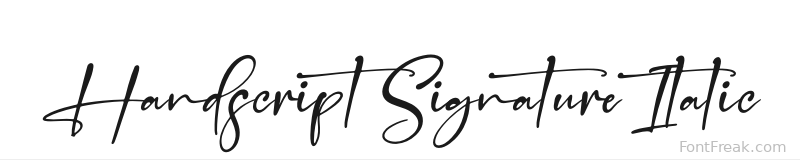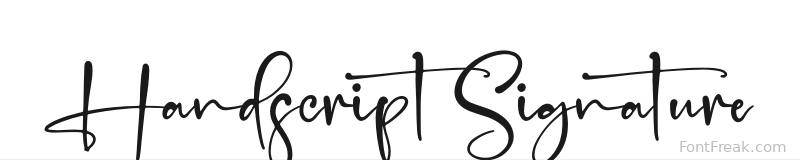
Handscript Signature
Handscript Signature Italic
Handscript Signature by Perspectype Studio is a captivating handwritten font that embodies the elegance and fluidity of natural script. This italic typeface showcases a delightful blend of organic curves and graceful lines, making it a perfect choice for projects that require a personal touch. With its varied stroke weight and subtle contrast, the font exudes sophistication while maintaining an approachable aesthetic. The spacing is well-considered, allowing for readability without sacrificing the charm that characterizes handwritten styles. Decorative elements, such as the sweeping ascenders and playful ligatures, contribute to the font's unique personality.
This font is ideal for a wide range of applications, including wedding invitations, where its romantic flair can set the tone for a special day. It's also well-suited for branding materials, such as logos for boutique shops or artisanal businesses, where a signature-like appearance can enhance brand identity. Additionally, Handscript Signature is perfect for restaurant menus, offering a warm and inviting look that can entice diners. It can even shine in social media graphics, where content creators seek to engage audiences with visually appealing text.
What sets the Handscript Signature font apart is its ability to evoke emotion through typography. Its fluid lines and artistic flair can transform ordinary text into a work of art, inviting creativity and connection. For those searching for a distinctive typeface, the Handscript Signature font free download is an opportunity to elevate any design project with elegance and style.